Having kids is such a great excuse to do all of the fun things you really want to do, but would feel weird doing as an adult.
Like watching Frozen II over and over again. (Anyone else love the music, too?)
Or throwing awesome monster themed birthday parties.
Speaking of, these fun fonts for kids would be absolutely perfect for birthday party invitations!
I just love these kids fonts!
Some have fun little images worked into the letters, while others just look playful. There are lots of themes, from winter to monster to valentines and more.
These fonts would make great printables, invitations, classroom posters and whatever else you can stick a font on!
My favorite fonts are Helig, Parry Hotter, Frosty, Little Munstars, Happy Popcorn, and, well, all of them! There are so many different styles, it makes it hard to choose just one favorite.
On to our fun fonts for kids!
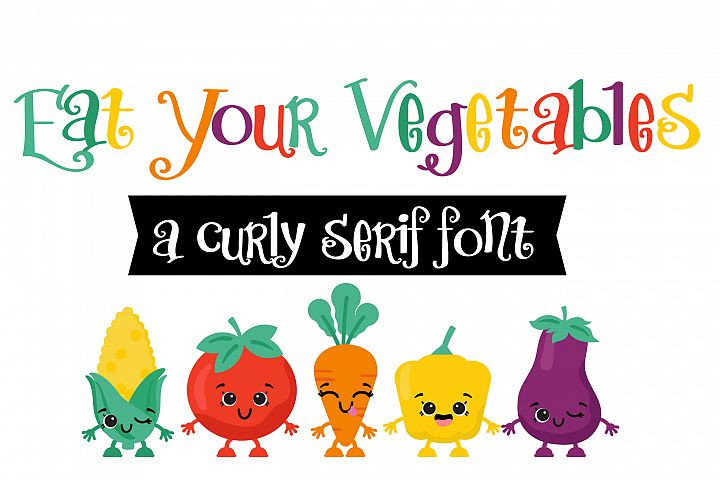
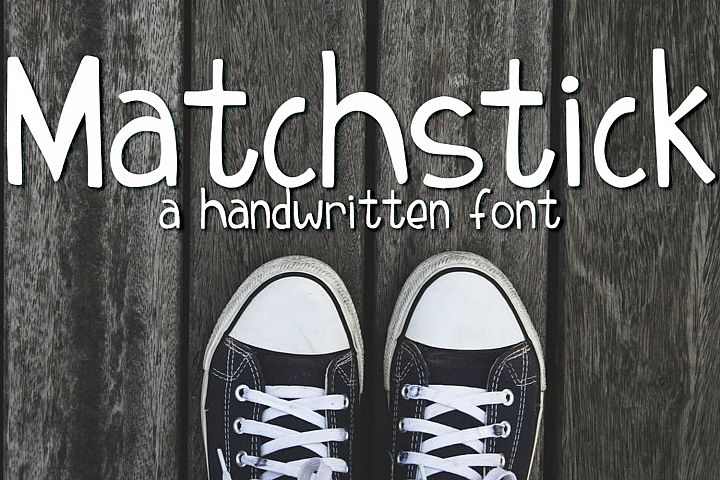
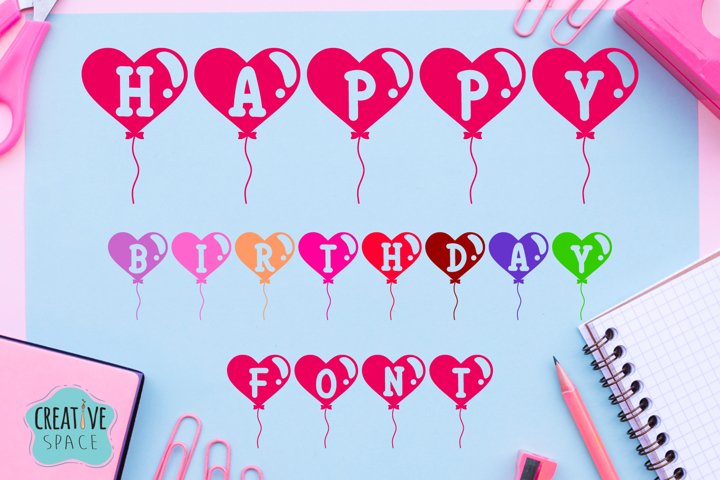
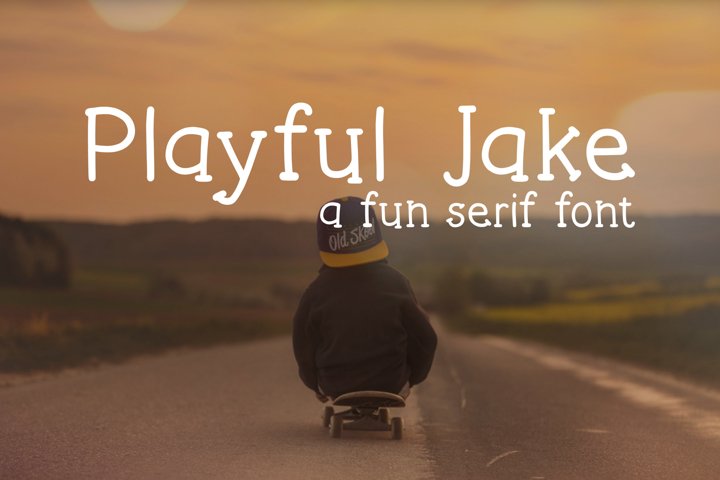
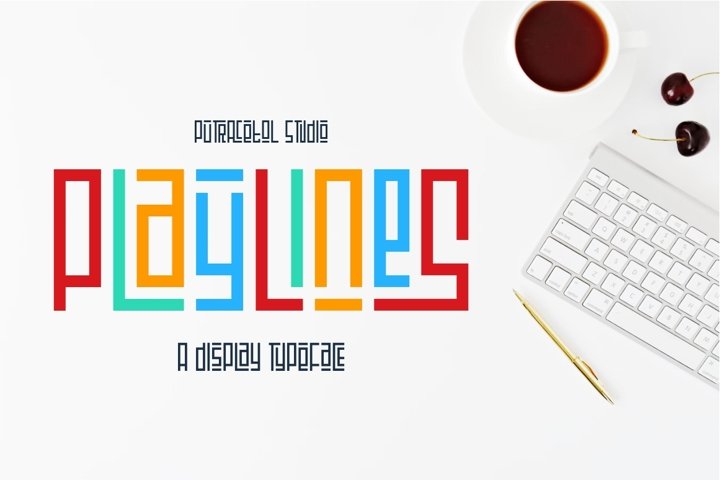
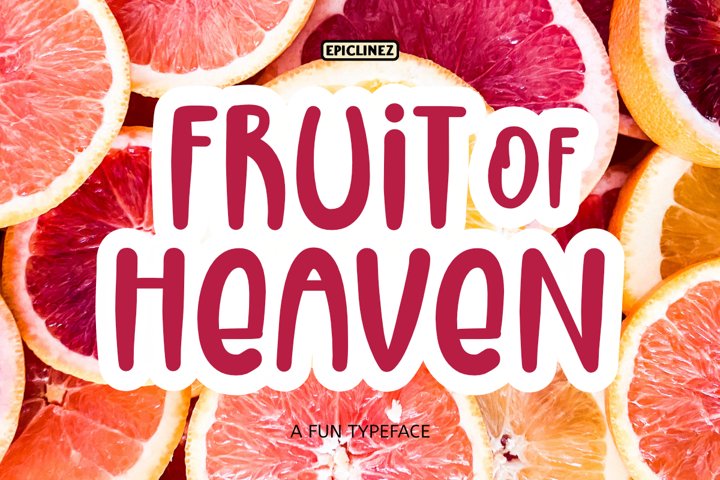
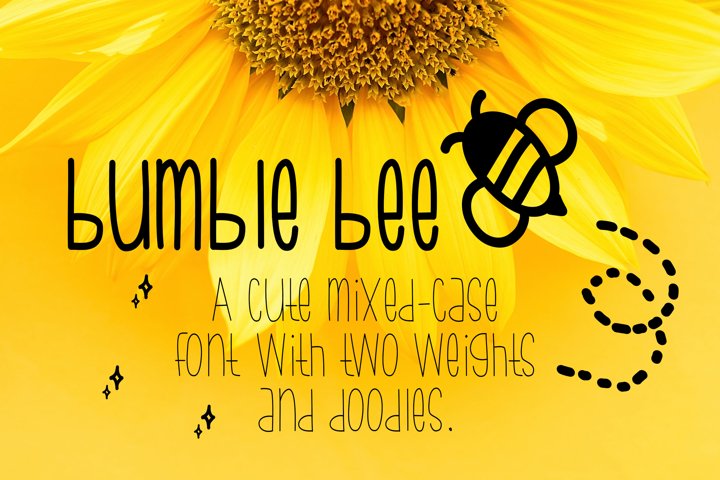
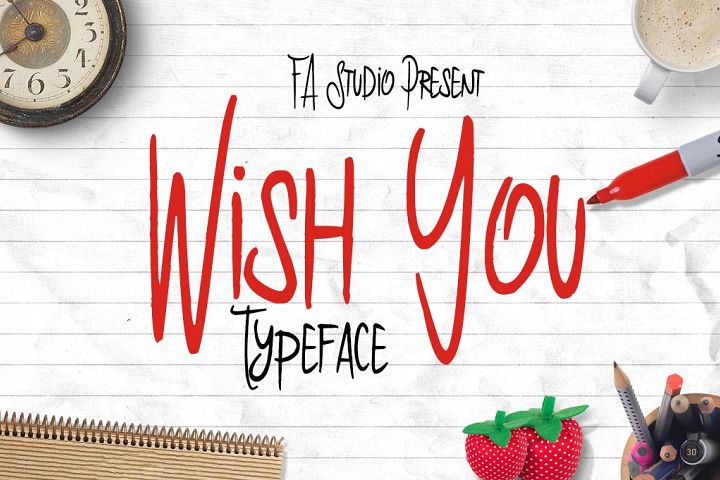
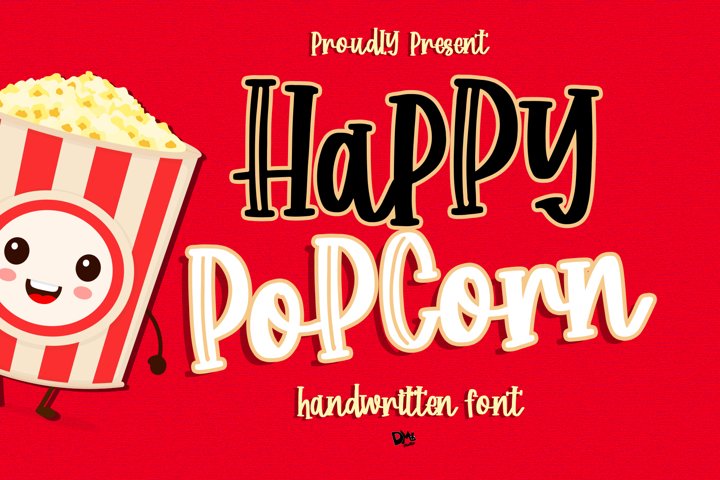
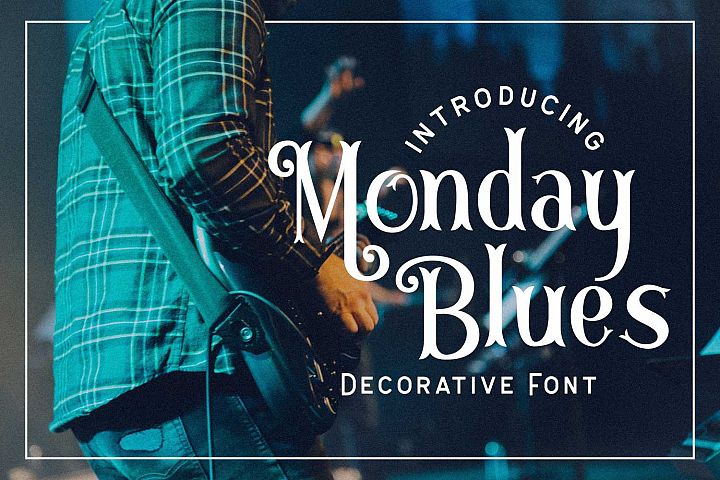
I hope you’ve enjoyed looking through these fun fonts for kids!